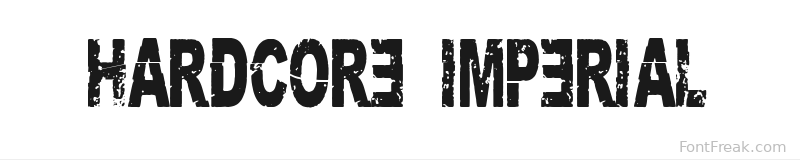
Hardcore Imperial
Hardcore Imperial, designed by woodcutter Manero, is a striking display font that embodies a rugged, bold aesthetic. This font belongs to the decorative category, characterized by its heavy stroke weight and textured appearance. The letters exhibit a distressed finish, giving them a raw and edgy vibe that is both eye-catching and unique. The contrast within the strokes adds depth, while the spacing is tight, ensuring that words stand out with a commanding presence. This makes Hardcore Imperial an ideal choice for projects that aim to convey strength and individuality.
This font is particularly well-suited for a variety of creative applications. It works exceptionally well on movie posters, where its boldness can capture attention and convey a strong thematic message. Additionally, it's perfect for music album covers, especially in genres like rock or punk, where the font’s hardcore aesthetic resonates with the audience. Restaurant menus aiming for a rustic or vintage feel will also benefit from its distinctive style, as will promotional materials for events like festivals or outdoor gatherings. Graphic designers looking for a unique touch will find this font a valuable asset in their toolkit.
In conclusion, Hardcore Imperial stands out due to its bold, rugged design that captures the essence of an adventurous spirit. Its versatility across various applications, coupled with the ease of access through a Hardcore Imperial font free download, makes it a must-have for anyone wanting to infuse their work with a unique and powerful aesthetic.